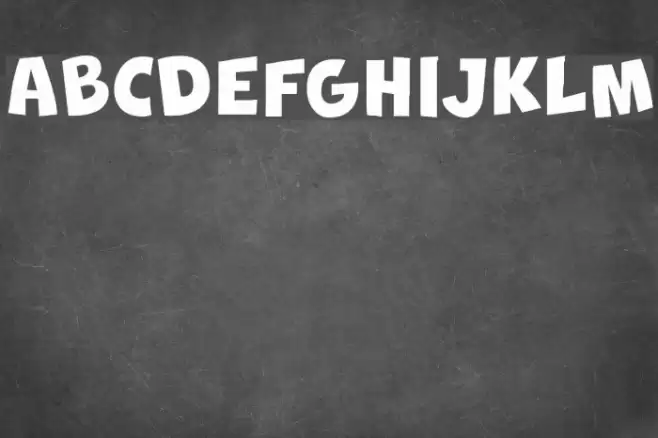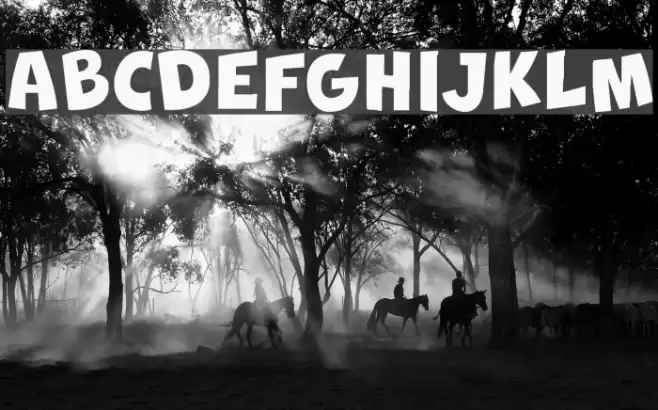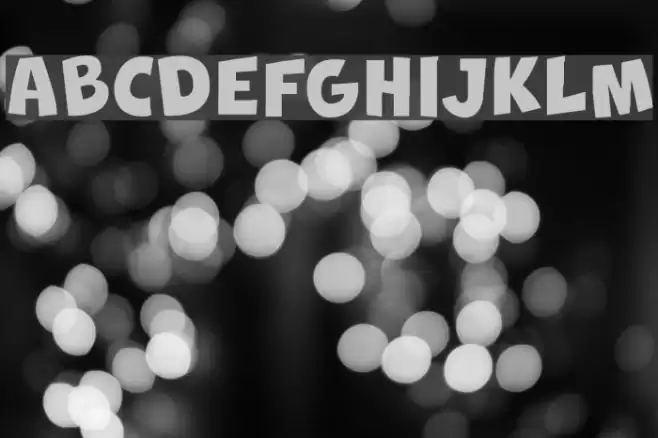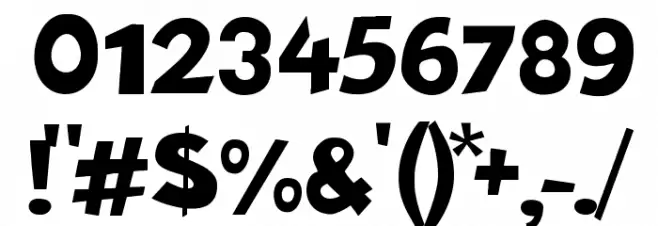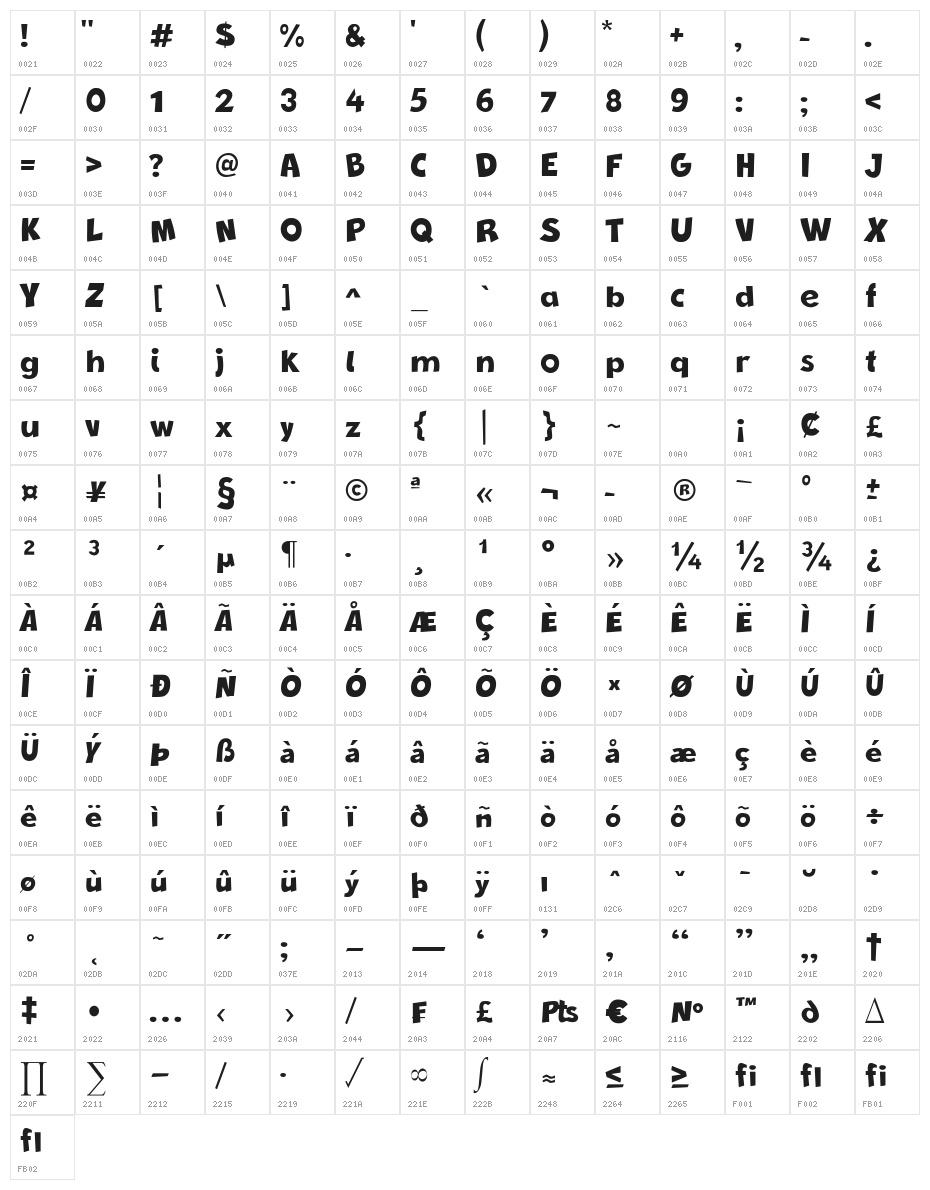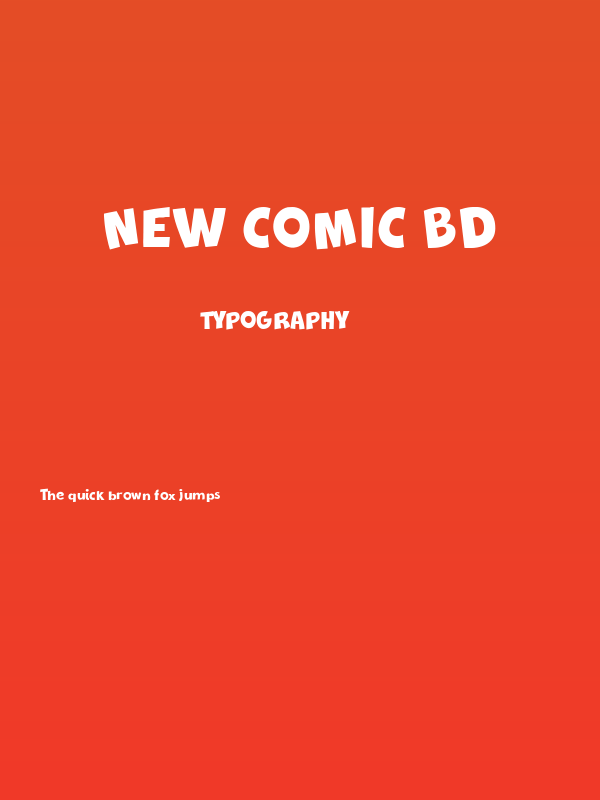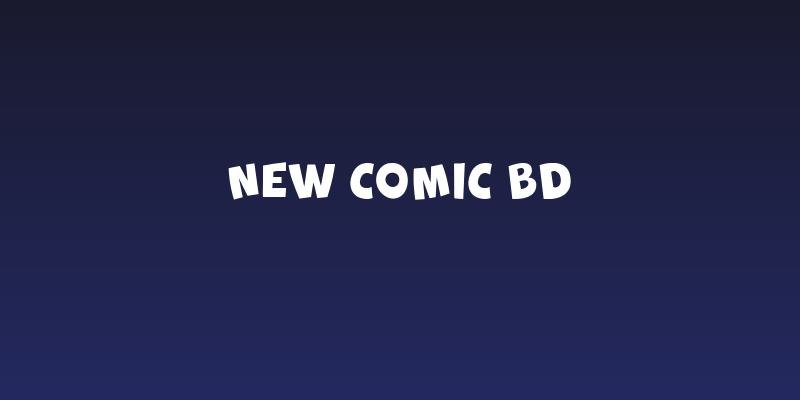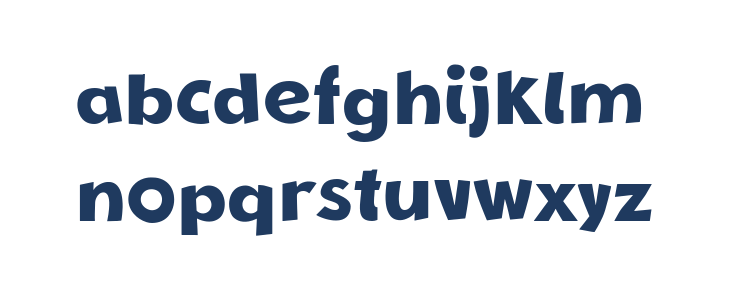
New Comic BD Font
New Comic BD Description
This playful and bold font features a whimsical style with exaggerated curves and a slightly uneven baseline, giving it a lively and animated appearance. The characters are thick and rounded, with a consistent stroke width that adds to its boldness. The uppercase letters are particularly striking, with a cartoonish flair that makes them stand out. The lowercase letters maintain the same playful energy, with a slightly more compact form. Numbers and special characters are designed to match the overall style, ensuring a cohesive look across all text. This font is perfect for projects that require a fun and engaging visual element.
- Proposed Projects: Ideal for comic books, children's books, playful branding, and eye-catching posters.
- Overall Style: Playful, Cartoonish